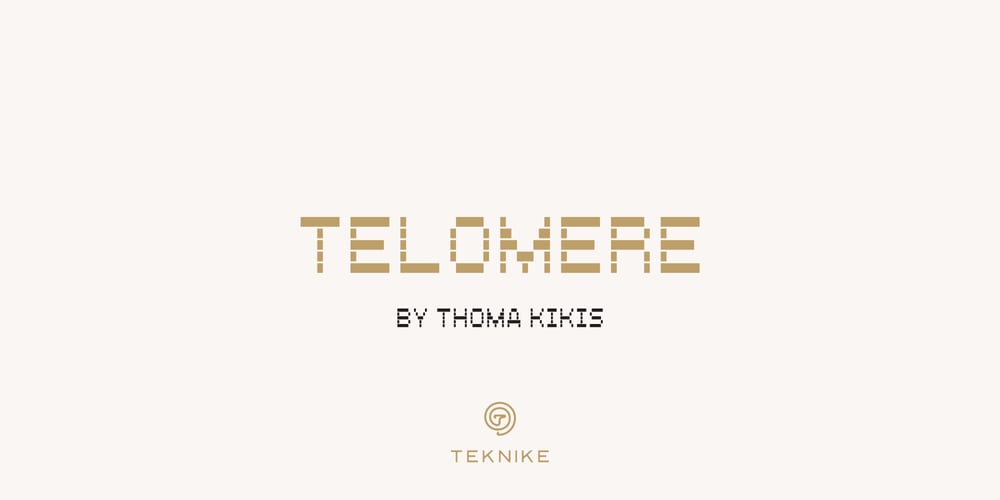
Telomere
Telomere font
Telomere Font Family was designed by Thoma Kikis and published by TEKNIKE. Telomere contains 1 styles and family package options. Telomere is a geometric monospace display font crafted from single rectangle geometric units intricately arranged to form a cohesive design. The name is derived from Ancient Greek roots, τέλος (télos) meaning ‘end’, and μέρος (méros) meaning ‘part’. In biology, a telomere is a region of repetitive nucleotide sequences and proteins found at the ends of chromosomes, acting as protective caps similar to the ends of shoelaces. They play a crucial role in cell division, essential for the viability of almost all animals, from the simplest to the most complex organisms. The Telomere typeface is exceptionally versatile, suitable for a wide array of applications including display work, architecture, technology, biology, sports, monograms, quotes, headings, and posters.